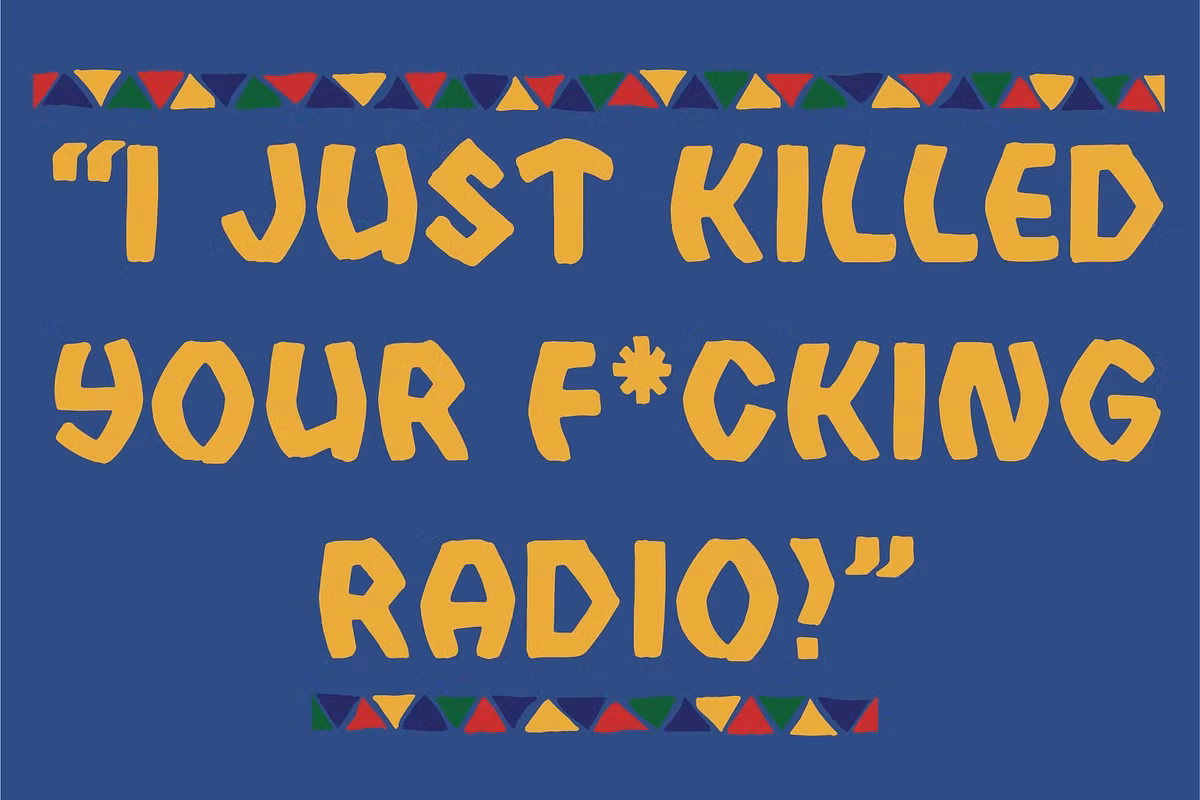
Do Right Font Free Download is a bold, retro-inspired typeface that channels vintage charm with a modern twist. Featuring thick strokes, rounded edges, and a playful yet structured feel, this font is perfect for posters, t-shirt designs, branding, packaging, and anything that needs a little nostalgic personality. Its distinctive style makes it a standout choice for creatives looking to capture that classic Americana or mid-century vibe.
The charm of Do Right Font Free Download lies in its balance of fun and function—it’s expressive yet clean, making it highly versatile across both print and digital designs. From signage to album covers, this typeface brings character and warmth to every letterform.